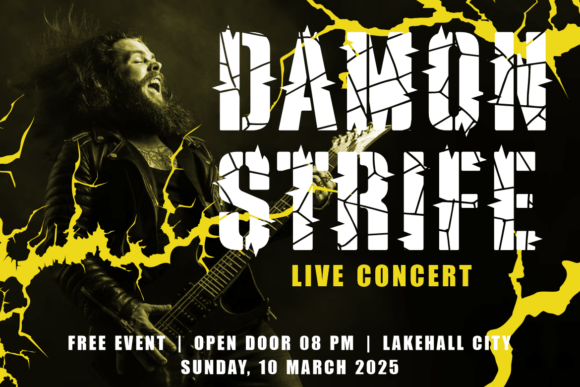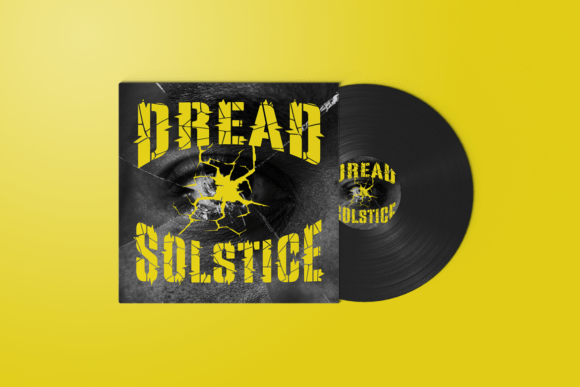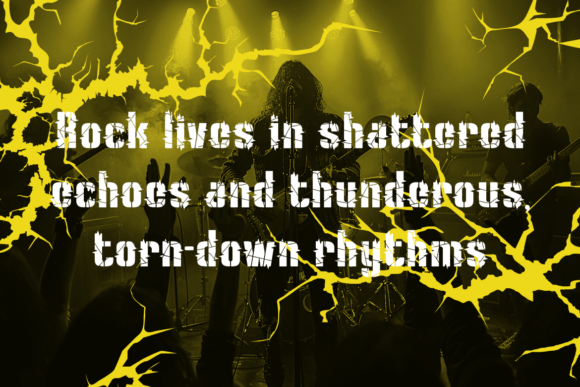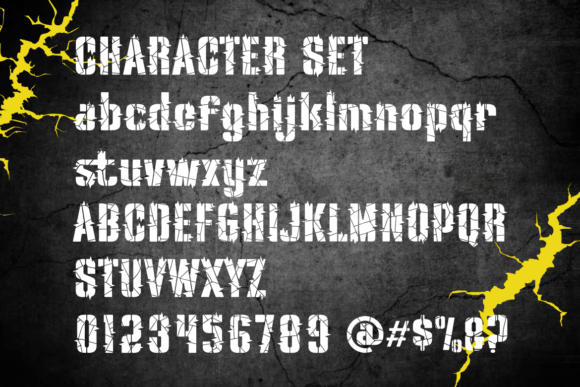
Cracked Slash Font: Unleash the Power of Rugged Intensity in Your Designs
In the realm of typography, few fonts capture the essence of rugged intensity and extreme aesthetics as boldly as the Cracked Slash Font. This powerful and distinctive typeface is a game-changer for designers seeking to infuse their projects with a raw, rebellious style reminiscent of death metal and black metal music genres. With its striking, shattered appearance and sharp, thorn-like fractures, Cracked Slash is the perfect choice for projects that demand immediate attention and convey themes of power, chaos, or rebellion.
The Unique Visual Impact of Cracked Slash
The Cracked Slash Font boasts robust, block-like letters disrupted by dramatic cracks, creating a unique visual impact that sets it apart from other typefaces. The layout of the font is meticulously crafted, ensuring each crack complements the overall readability while maintaining its fierce and aggressive vibe. This delicate balance between aesthetics and legibility makes Cracked Slash an excellent choice for a wide range of applications, from music band logos and album covers to posters, merchandise branding, and more.
Applications for Cracked Slash Font
Cracked Slash Font excels in applications designed to make a memorable impression. Its fractured and intense design makes it an excellent choice for:
- Music Band Logos and Album Covers: Perfect for death metal, black metal, and hard rock bands seeking to convey a powerful, aggressive image.
- Posters and Flyers: Ideal for promoting concerts, festivals, or events with a bold, eye-catching aesthetic.
- Merchandise Branding: Great for creating striking apparel, accessories, or promotional items that demand attention.
- Dark-Themed Packaging: Suitable for products with a bold, edgy personality, such as extreme sports gear or luxury items with a dark twist.
- Horror Film Titles and Thumbnails: Adds a touch of eeriness and foreboding, perfect for horror movies, thrillers, or suspenseful content.
- Gothic-Style Magazine Covers: Brings a sense of mystery and intensity to publications with a dark, alternative focus.
- Thriller or Suspense Book Covers: Creates a gripping, attention-grabbing title that promises a thrilling read.
Designing with Cracked Slash Font
When working with Cracked Slash Font, designers can experiment with various techniques to maximize its impact:
- Color Schemes: Pair the font with bold, contrasting colors to amplify its rugged intensity.
- Texture and Patterns: Combine the font with textures or patterns that complement its fractured design, such as rough metal or stone.
- Layout and Composition: Balance the font’s boldness with careful layout and composition to create visually striking designs.
Cracked Slash Font is a powerful tool for designers seeking to inject their projects with a dose of rugged intensity and extreme aesthetics. Its unique visual impact, versatility, and meticulous craftsmanship make it an excellent choice for a wide range of applications. Whether you’re designing for music, film, or publishing, Cracked Slash Font is sure to leave a lasting impression on your audience. Unleash the power of Cracked Slash and take your designs to the next level.